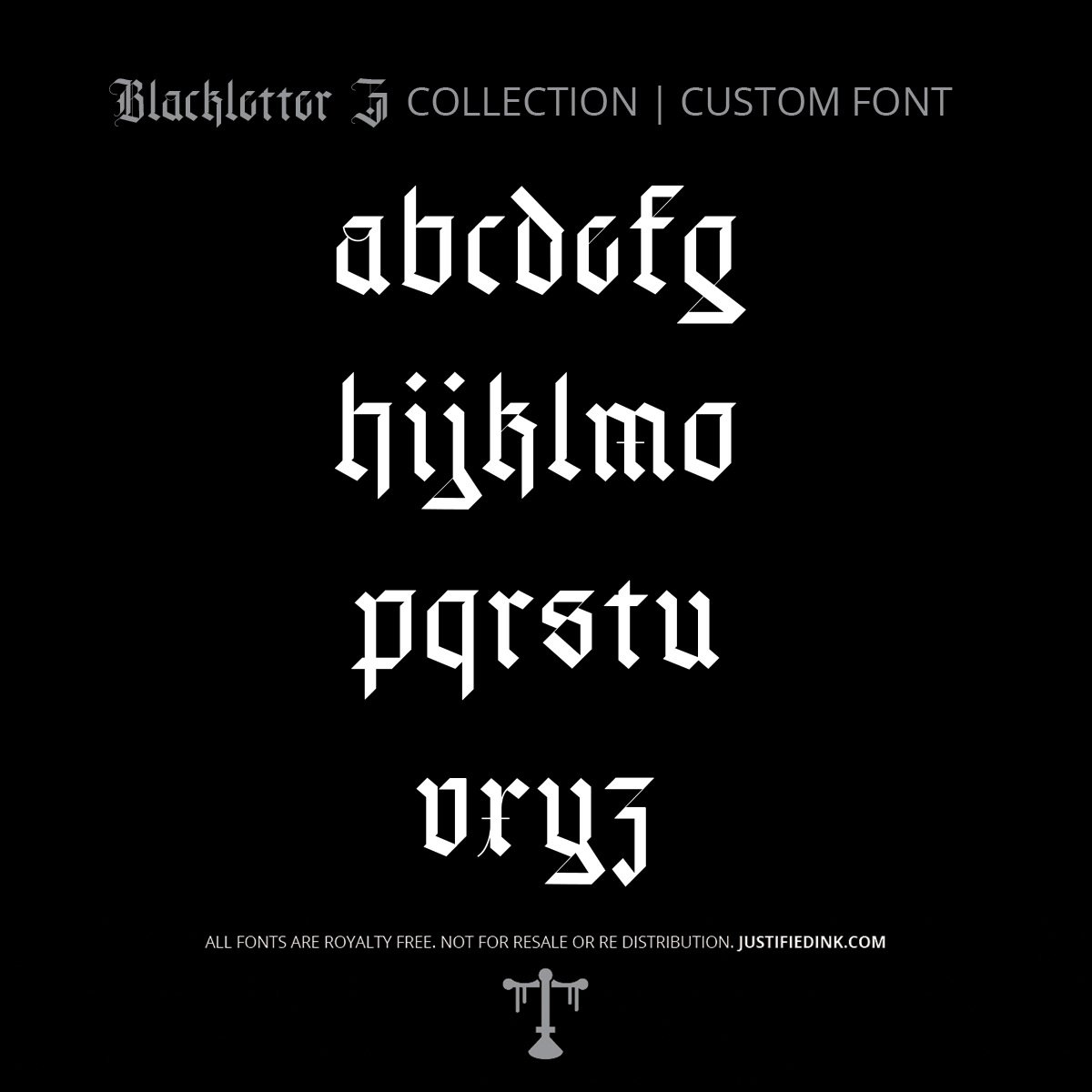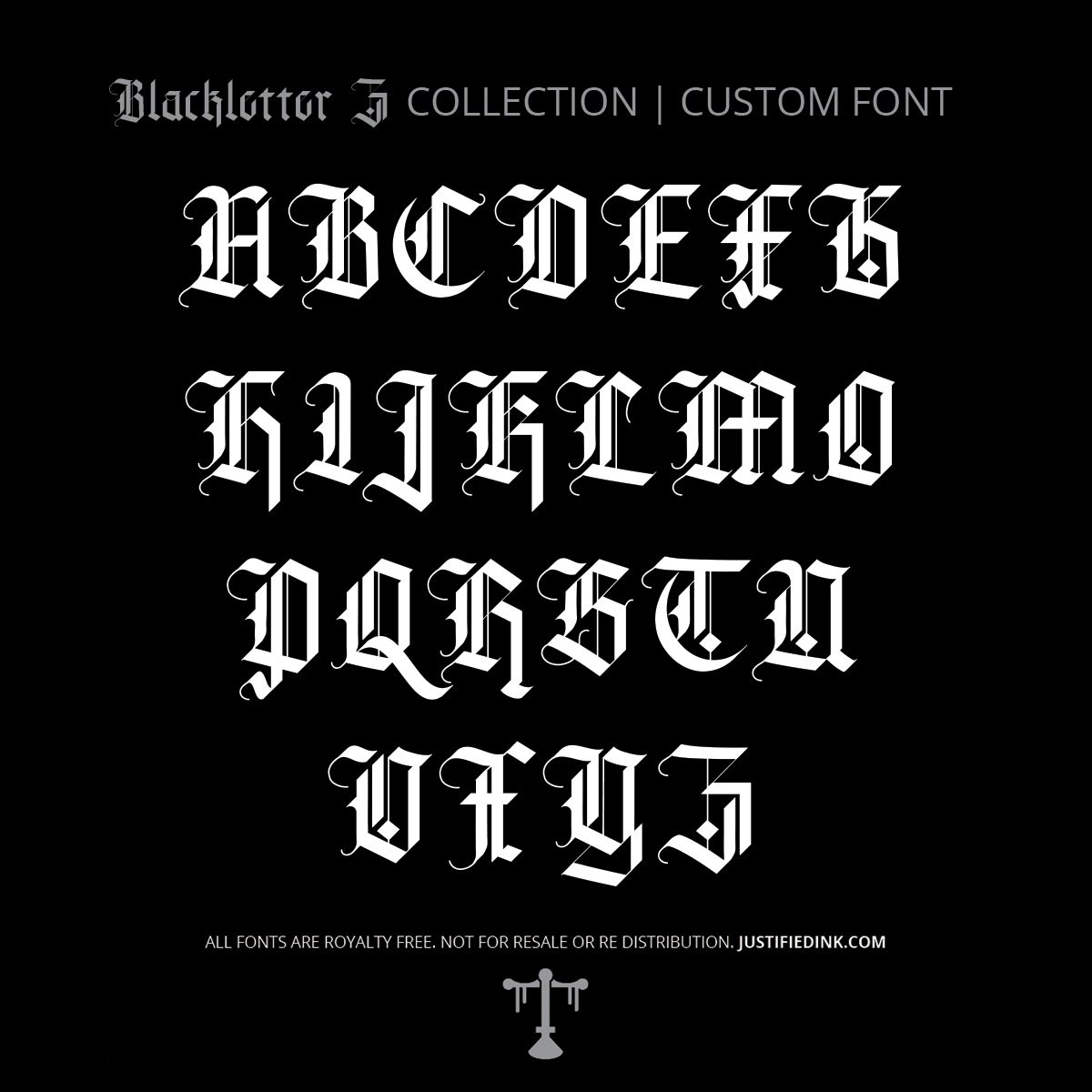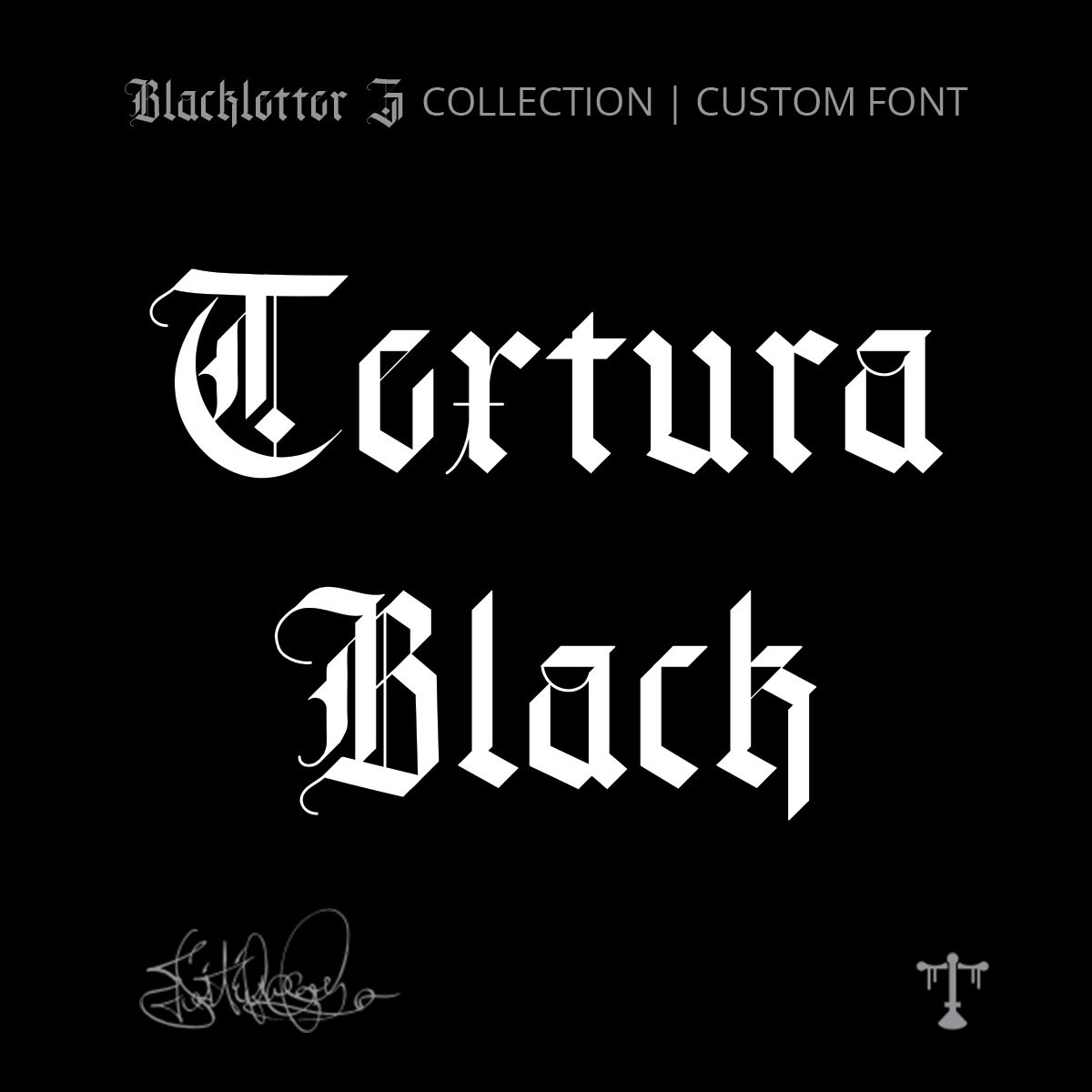
Textura Black (1 style) - Custom Font
The Tall Shadows of Gothic Text
Textura Black magnifies the vertical, woven texture of medieval textura into a bold gothic font. Its tight rhythm and tall, narrow strokes create text that looks both ritualistic and commanding. Tattooists, designers, and typographers can wield it to summon gothic scripts of pure tradition.